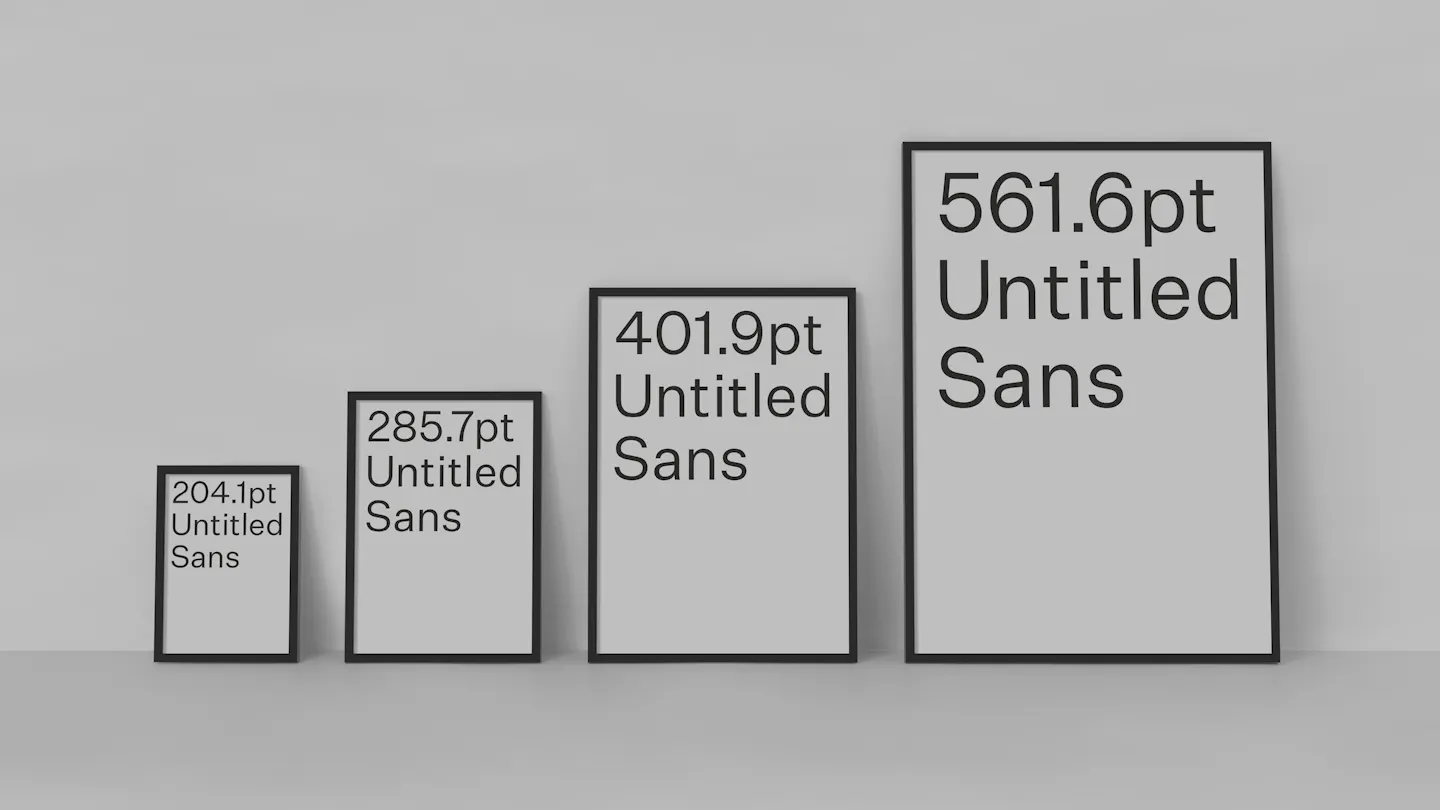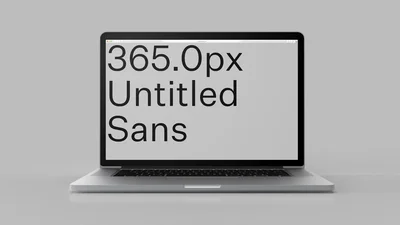
Inter vs Untitled Sans
Inter is the strongest overall replacement for Untitled Sans. At 87% similarity, both share a deliberately neutral neo-grotesque character tuned for screen legibility. Inter's variable font support, broader language coverage, and optical sizing make it a practical upgrade in several respects.
87% Similarity
Inter
Untitled Sans
Where You'll See These Fonts
Untitled Sans
- Design system foundations
- Architecture and design studio identities
- Editorial publication layouts
- Technology company brand systems
- Cultural institution communications
Recommended: Inter
- Shares Untitled Sans's minimal character
- Particularly suited for design system foundations and content-heavy interfaces
- Variable font with continuous weight adjustment
- Supports 7 scripts including cyrillic and cyrillic-extended
- Delivers a modern, clean, professional aesthetic
Consider: Untitled Sans
- Designed specifically for branding and editorial
- Used by Design system foundations, Architecture and design studio identities